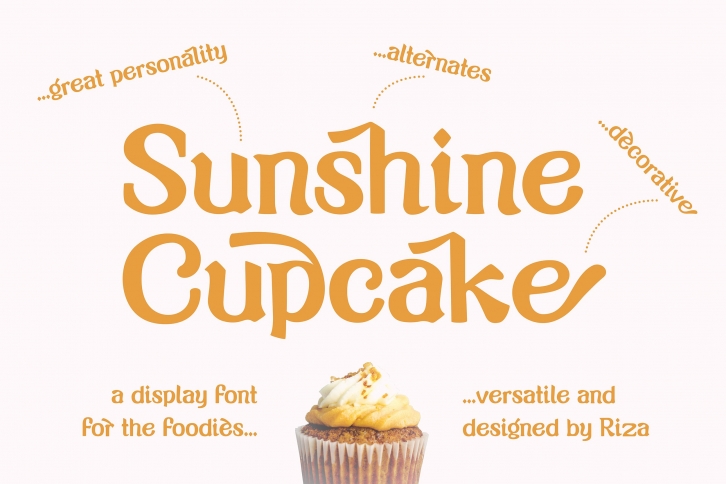
Sunshine Cupcake is predominantly a display font that is ideal for using in packaging design, eatery menus, magazines, logos, posters and much more.
The font comes with certain alternate characters to uplift the font’s personality to the next level and is great for adding flair in a heading or a highlighted body of text.